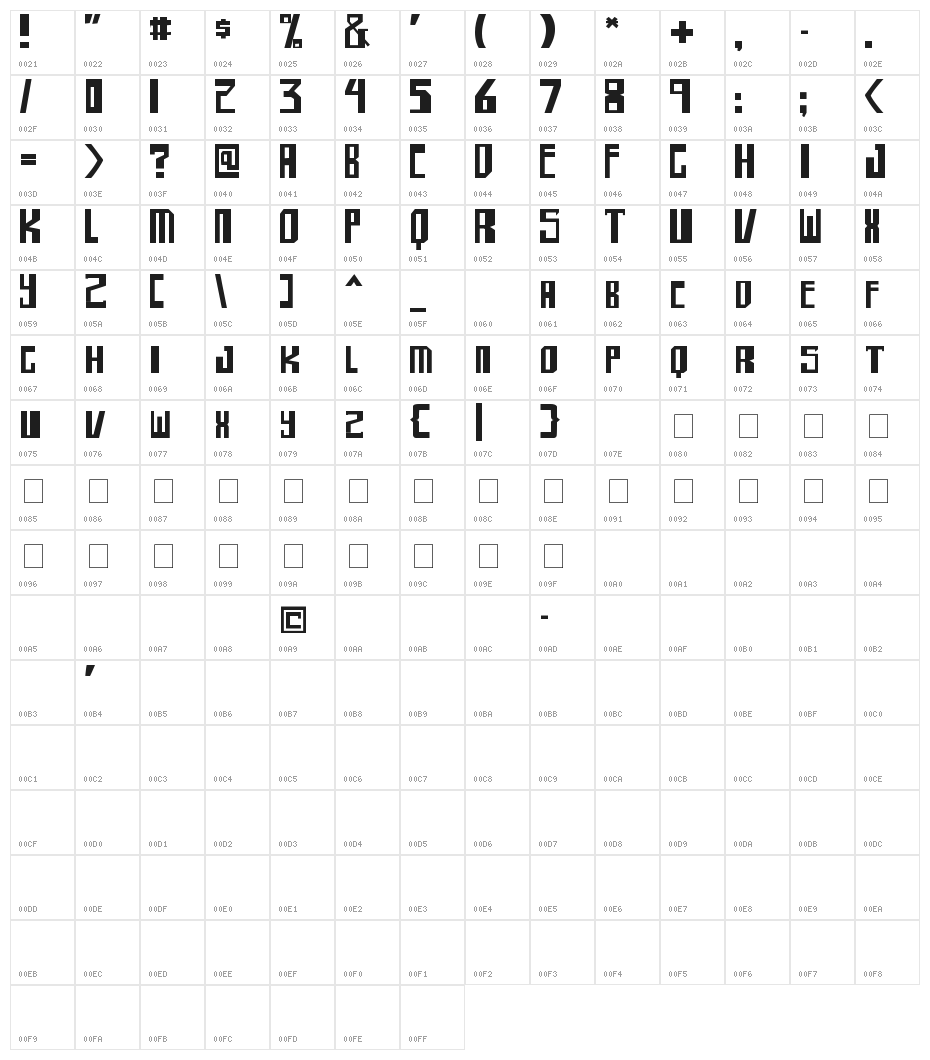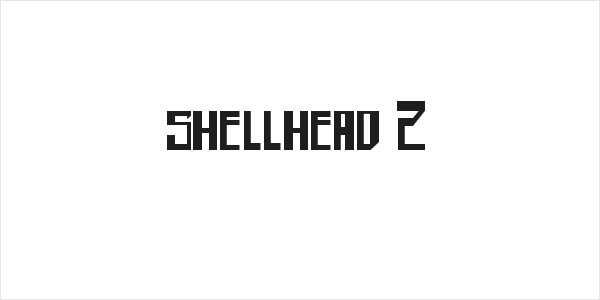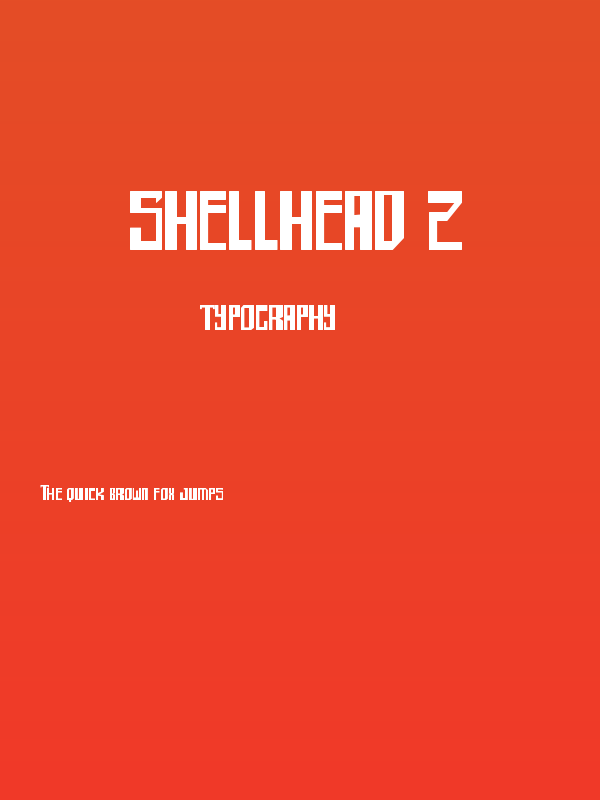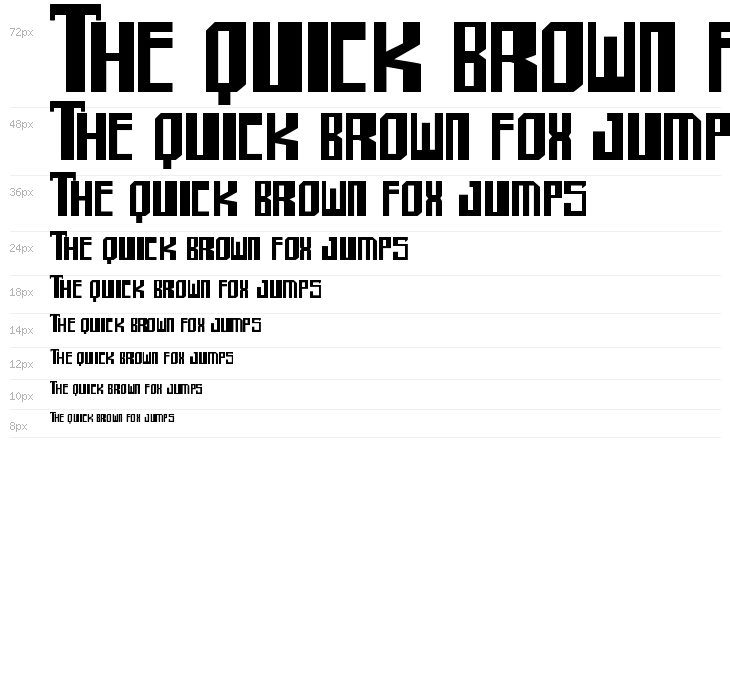
shellhead 2 Font
shellhead 2 Description
This font features a bold, geometric design with sharp angles and a blocky appearance. The uppercase letters are uniform in height, creating a strong and cohesive look. The lowercase letters maintain the same boldness, ensuring consistency across the typeface. Numbers are equally robust, with a distinct, impactful style. Special characters are designed to match the overall aesthetic, making them suitable for various uses. The font's solid structure and high contrast make it ideal for attention-grabbing designs.
Proposed ProjectsIdeal for posters, headlines, logos, and any design requiring a strong visual impact.